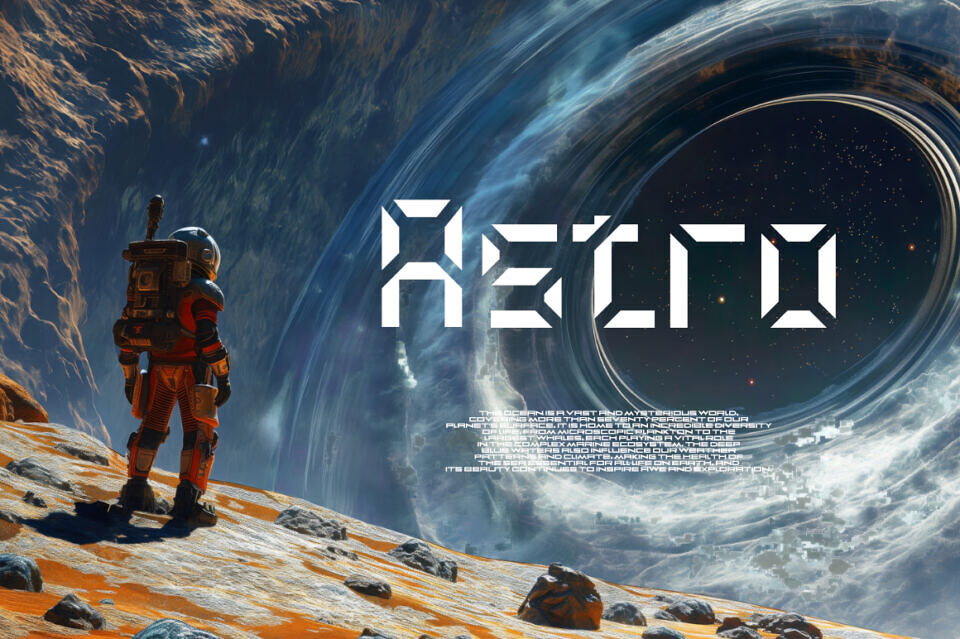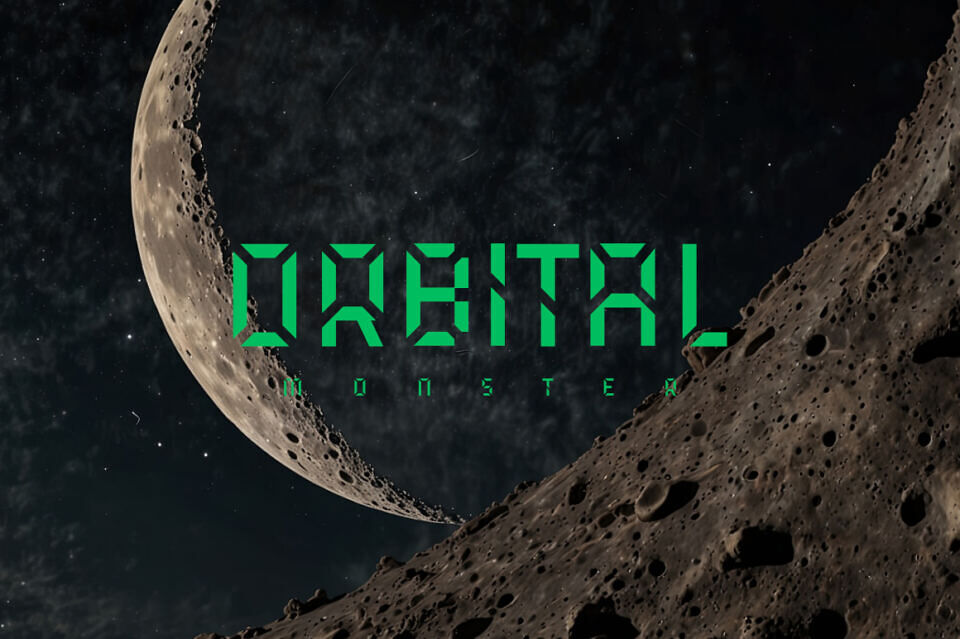
Accelerate your designs with the Speed Px Watch Font, a bold display typeface built for the digital frontier. Featuring a heavy, segmented structure reminiscent of futuristic LED readouts and sci-fi HUDs, this font exudes a high-tech, cybernetic vibe.
Its geometric, stenciled characters utilize sharp angles and diagonal cuts to create a dynamic sense of motion. Perfect for gaming headers, racing posters, and cyberpunk visuals, this techno-inspired font delivers a modern, mechanical aesthetic to any project.